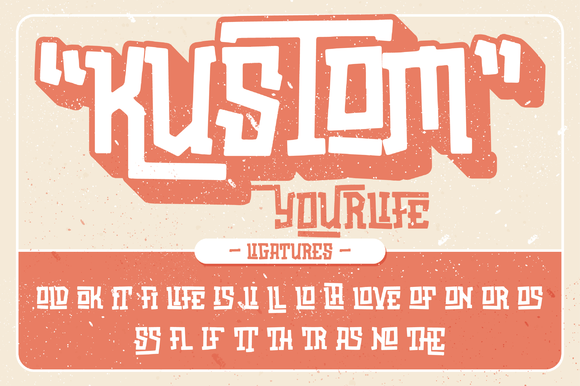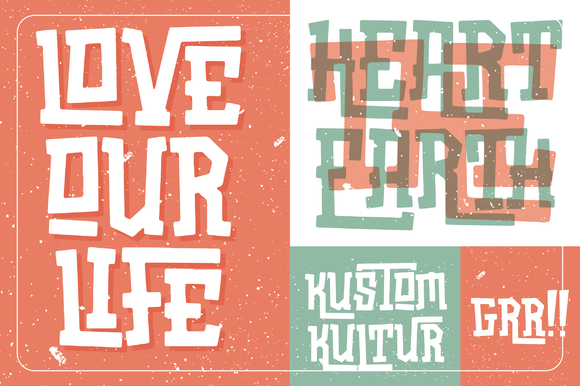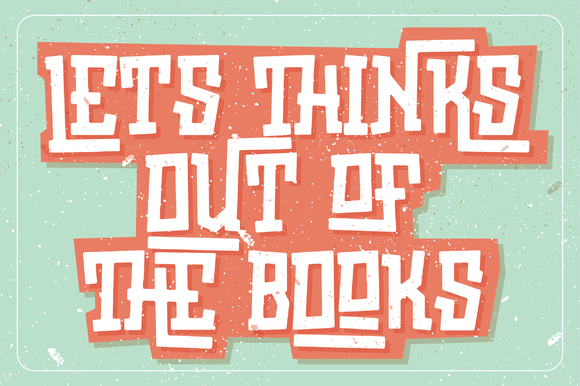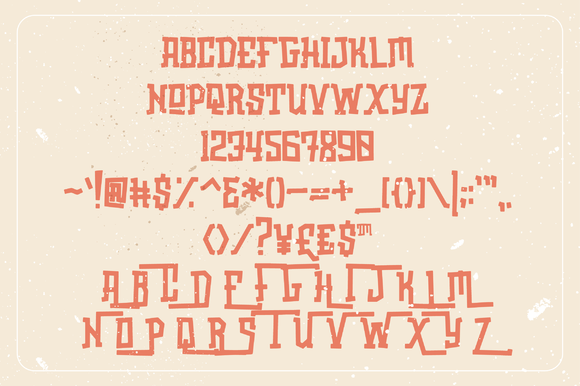
Introduction to Oldstar Font Font
Fonts play a crucial role in design, and the Oldstar Font font is a typeface that brings both character and versatility to any project. Whether you’re working on a branding project, a website, or a print design, the Oldstar Font font offers a unique style that can elevate your work.
Oldstar is a cool display font that has a touch of vintage and a touch of modernity; use as a title treatment for a wide range of projects, and Oldstar looks really great in logotype as well.
Key Features of Oldstar Font Font
Why Choose Oldstar Font Font?
The Oldstar Font font is more than just a typeface – it’s a design tool that helps you communicate your message with style and clarity. Its unique character set and versatile design make it suitable for a wide range of applications, from elegant invitations to bold headlines.
With its carefully crafted letterforms and balanced proportions, the Oldstar Font font ensures readability and visual appeal across all mediums.
What makes Oldstar Font font special?
The Oldstar Font font stands out with its unique design, exceptional readability, and versatility across various design applications.